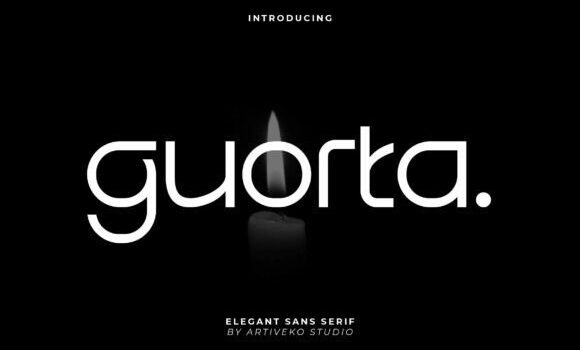
Guorta Font – Free Download Introduction to Guorta Font Guorta is a clean and refined sans-serif font that embodies simplicity, balance, and contemporary elegance. 📸 Preview Gallery 6 images 📌 Product Name Guorta Font 👤 Author Artiveko 📂 Category Explore